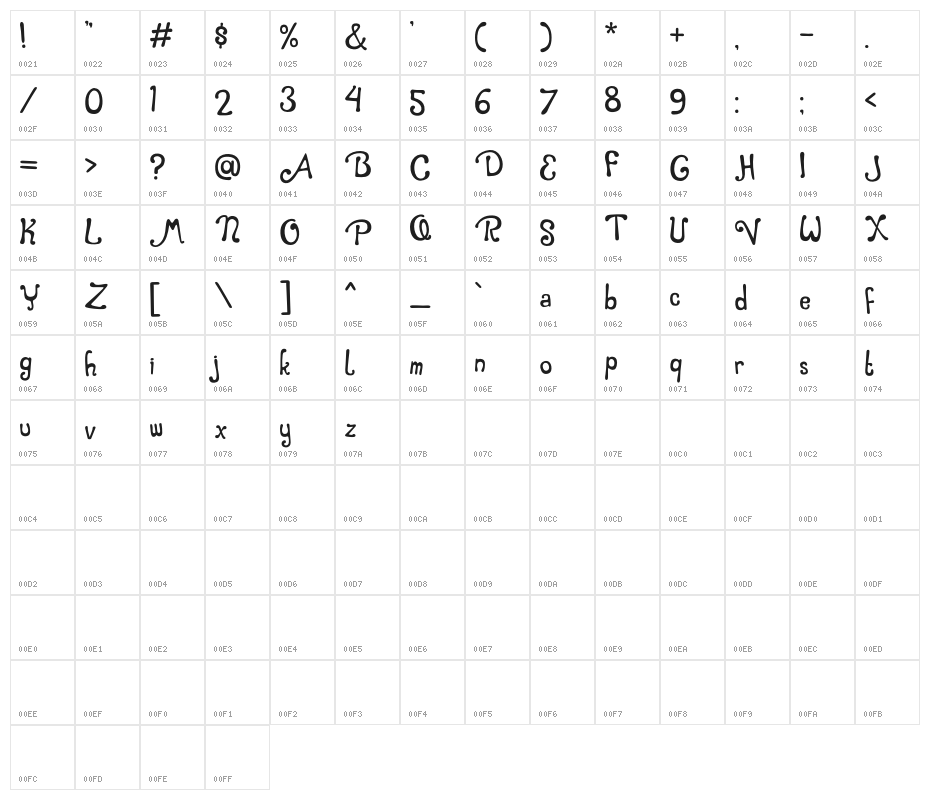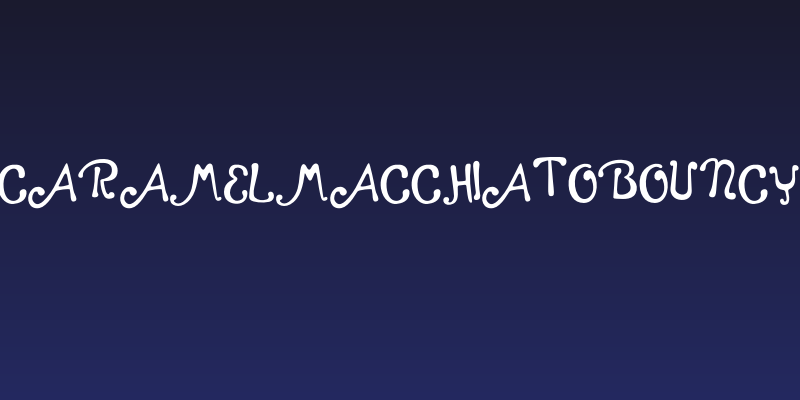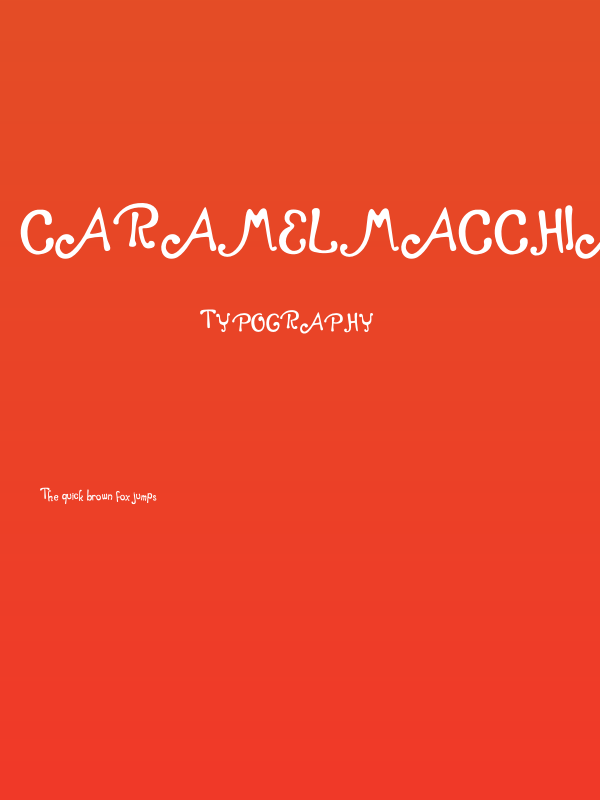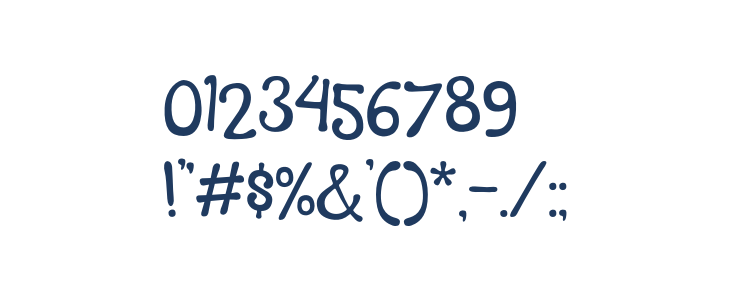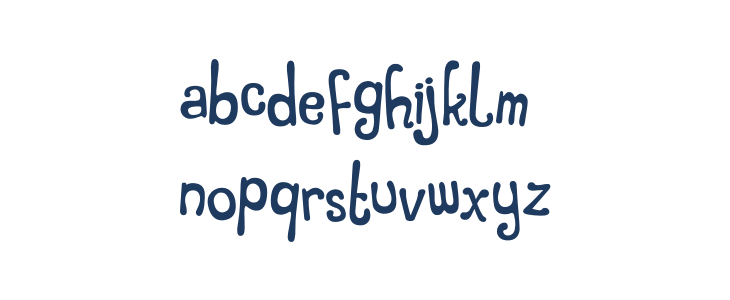
CaramelMacchiatoBouncy Font
CaramelMacchiatoBouncy Description
This font features a playful and whimsical design with a bouncy and rounded appearance. The letters are characterized by their smooth curves and slightly exaggerated forms, giving them a lively and energetic feel. The uppercase letters maintain a consistent height, while the lowercase letters exhibit a more varied baseline, enhancing the font's playful nature. The numbers and special characters follow the same design principles, ensuring a cohesive look throughout. This font's unique style makes it stand out, offering a friendly and approachable vibe.
| Proposed Projects | Ideal for children's books, playful branding, greeting cards, and creative posters. |